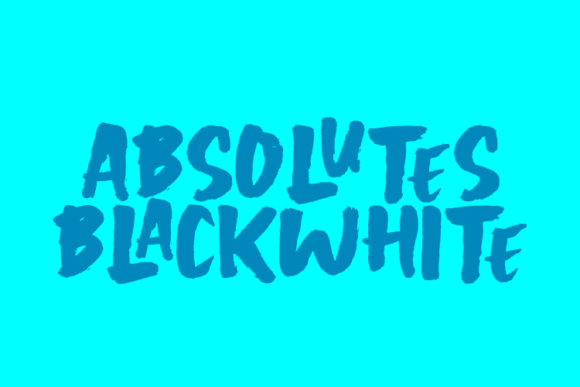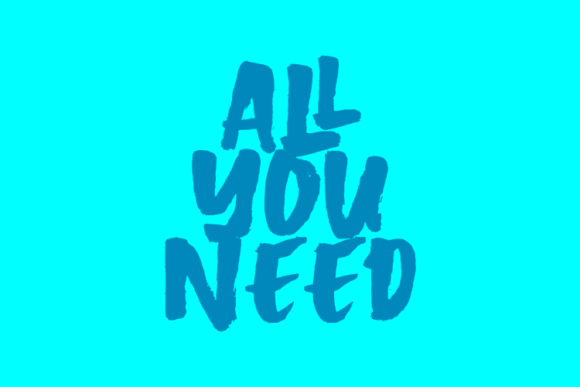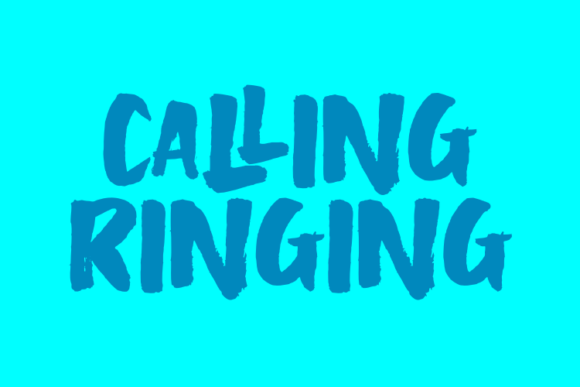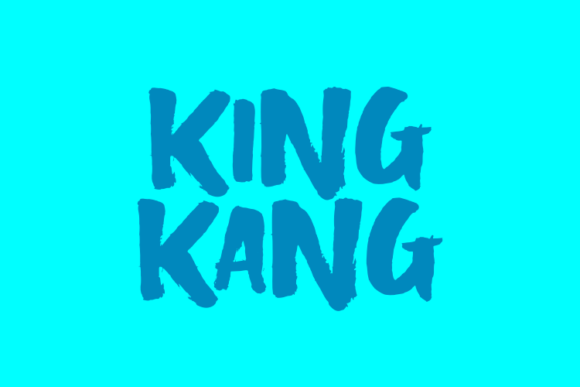
Introducing Coolerbrush Font: The Ultimate Display Font for Creative Designs
Are you tired of using the same old fonts in your designs? Look no further than Coolerbrush Font, a unique and chunky charactered display font that’s sure to make your creative ideas stand out. With its simple and quirky style, Coolerbrush is the perfect addition to any design project, from crafting and DIY tutorials to branding and advertising campaigns.
The Characteristics of Coolerbrush Font
Coolerbrush Font is a one-of-a-kind display font that’s designed to grab attention. Its chunky characters and simple style make it easy to read and understand, while its quirky touch adds a dash of personality to any design. Whether you’re creating a logo, heading, or title, Coolerbrush Font is the perfect choice for designers and crafters looking to add some flair to their work.
The Benefits of Using Coolerbrush Font
So why choose Coolerbrush Font for your design projects? Here are just a few benefits of using this unique display font:
- Versatility: Coolerbrush Font is adaptable to a wide variety of designs, from modern and sleek to vintage and distressed. Its simplicity and quirkiness make it a versatile font that can be used in many different contexts.
- Readability: Despite its chunky characters, Coolerbrush Font is surprisingly easy to read. This makes it perfect for headings, titles, and other display text where readability is key.
- Personality: Coolerbrush Font has a unique personality that adds a touch of whimsy to any design. Whether you’re creating a brand identity or a craft tutorial, this font is sure to make your work stand out.
How to Use Coolerbrush Font in Your Designs
Coolerbrush Font is easy to use in a variety of design projects. Here are a few ideas to get you started:
- Branding: Use Coolerbrush Font to create a unique and memorable brand identity. Its quirky style makes it perfect for logos, business cards, and other marketing materials.
- Crafting and DIY: Add a touch of personality to your crafting and DIY tutorials with Coolerbrush Font. Use it to create headings, titles, and other display text that will make your tutorials stand out.
- Advertising: Coolerbrush Font is perfect for advertising campaigns where you want to grab attention and make a statement. Use it to create eye-catching headlines and display text that will draw in your target audience.
Tips for Getting the Most Out of Coolerbrush Font
Here are a few tips for getting the most out of Coolerbrush Font:
- Experiment with colors: Coolerbrush Font looks great in a variety of colors, from bold and bright to pastel and muted. Experiment with different colors to find the perfect look for your design.
- Play with textures: Add some texture to your design by combining Coolerbrush Font with different textures and patterns. This will give your design a unique and eye-catching look.
- Mix and match: Don’t be afraid to mix and match Coolerbrush Font with other fonts and design elements. This will add visual interest to your design and make it more engaging.
Coolerbrush Font is a unique and versatile display font that’s perfect for designers and crafters looking to add some personality to their work. With its simple and quirky style, this font is adaptable to a wide variety of designs and is sure to make your creative ideas stand out. Whether you’re creating a brand identity, crafting and DIY tutorial, or advertising campaign, Coolerbrush Font is the perfect choice. So why not give it a try and see how it can elevate your designs?